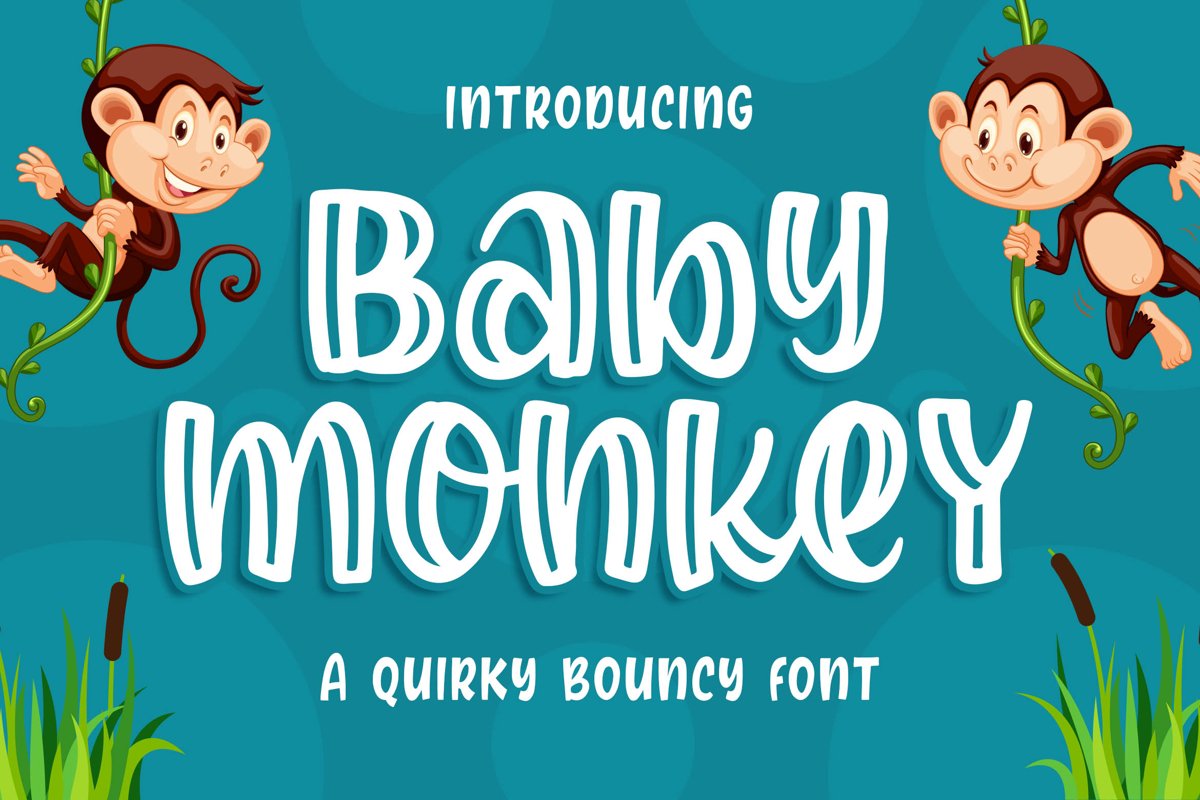
Introducing of our new product the name is Baby Monkey a Quirky Bouncy Font. Baby Monkey inspired by bouncy quirky this font is a fun theme very good for, book cover, poster, t-shirt, quote, logotype, craft and etc